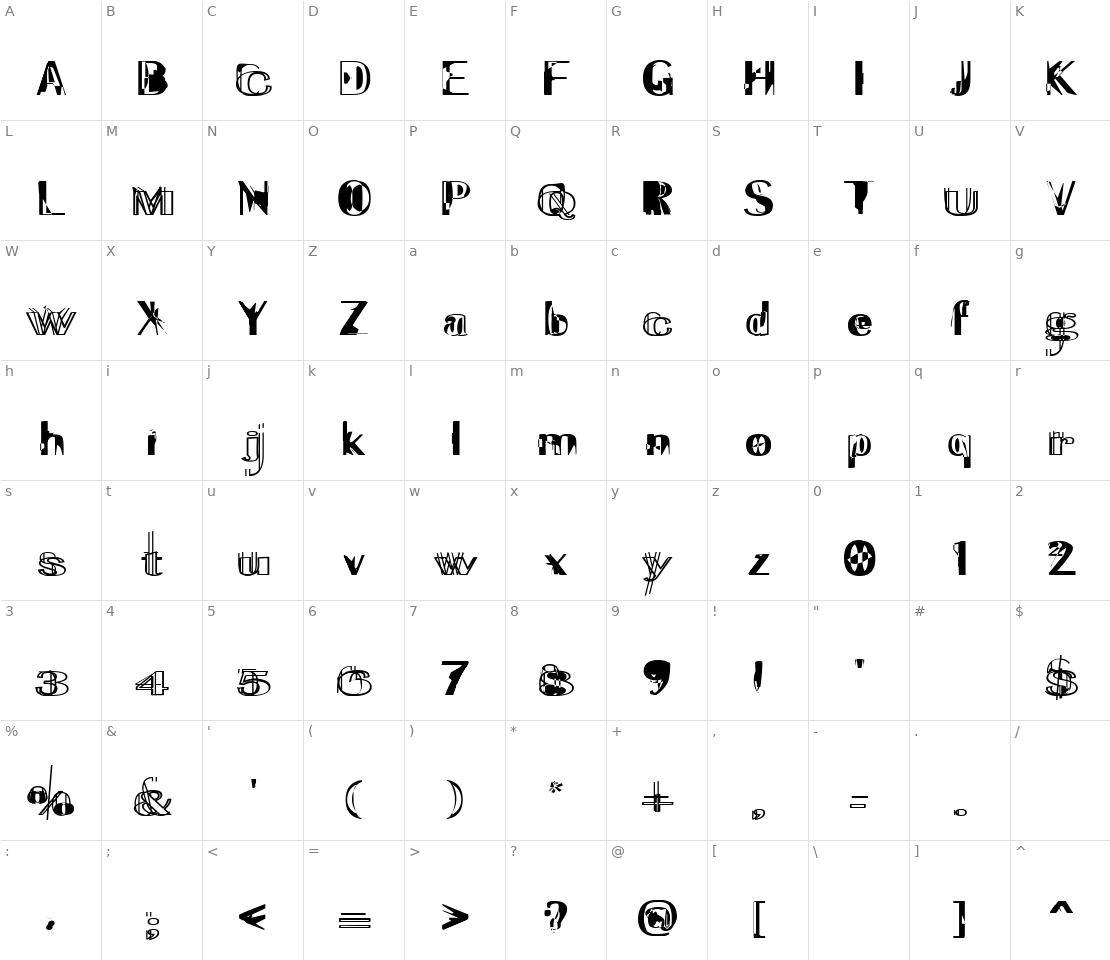
ExperiTypo5
ExperiTypo5 from Intellecta Design is an experimental display face where every letter feels like it was pulled from a different broken typewriter or hand-lettered sample, with wildly irregular proportions and inconsistent baselines. The distortion isn't random noise but deliberate collage, giving the whole alphabet a restless, art-school energy. Best kept to headlines, posters, and editorial pieces where visual unpredictability is the whole point.